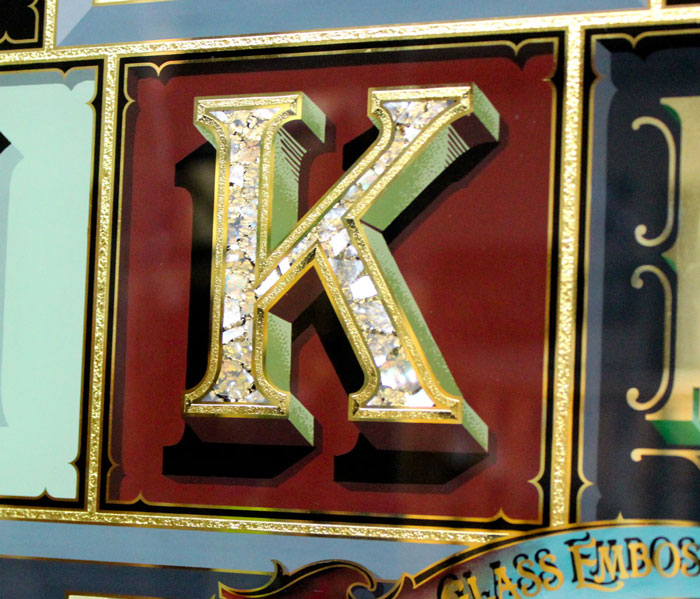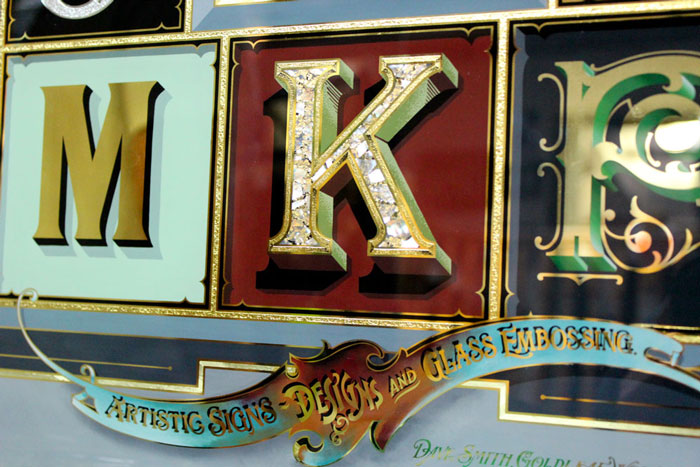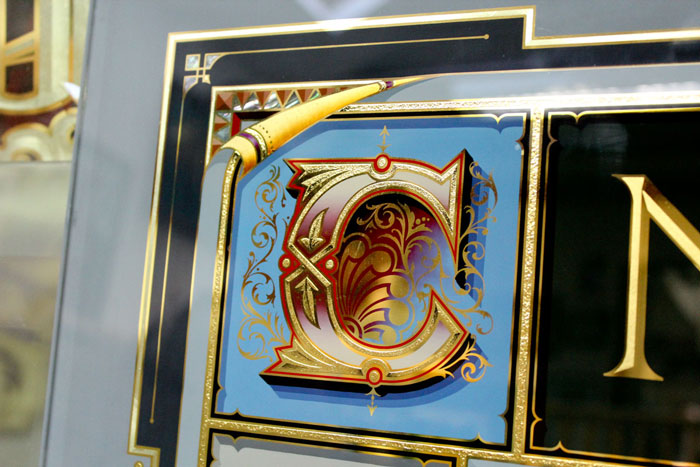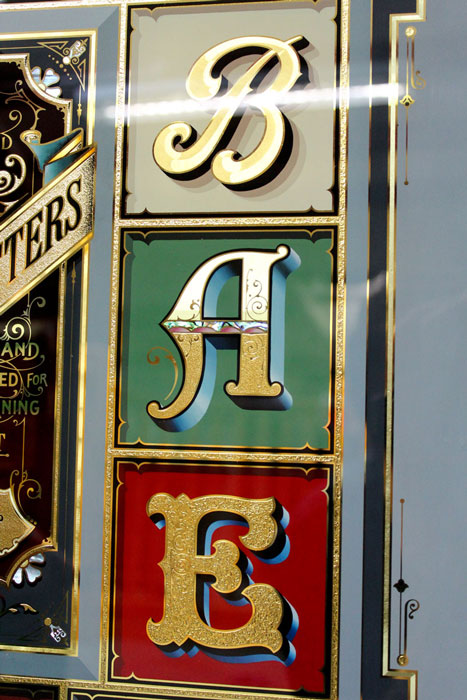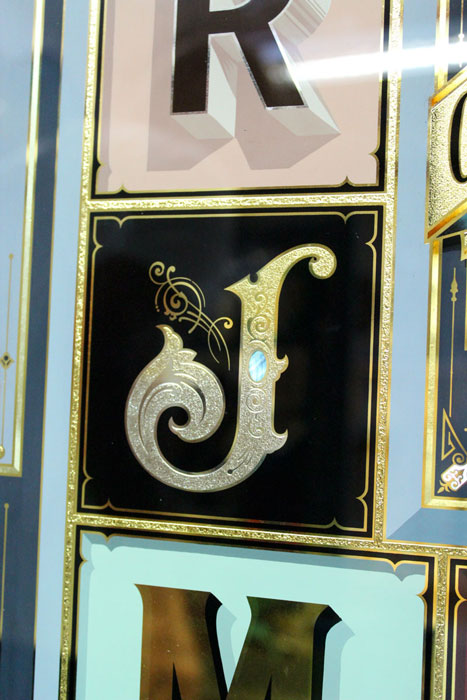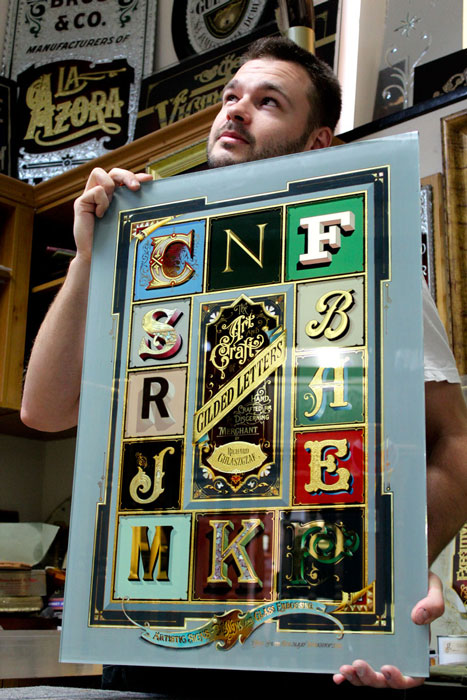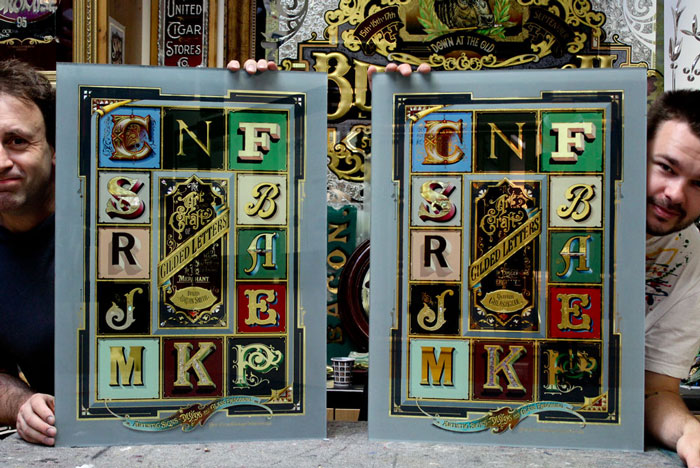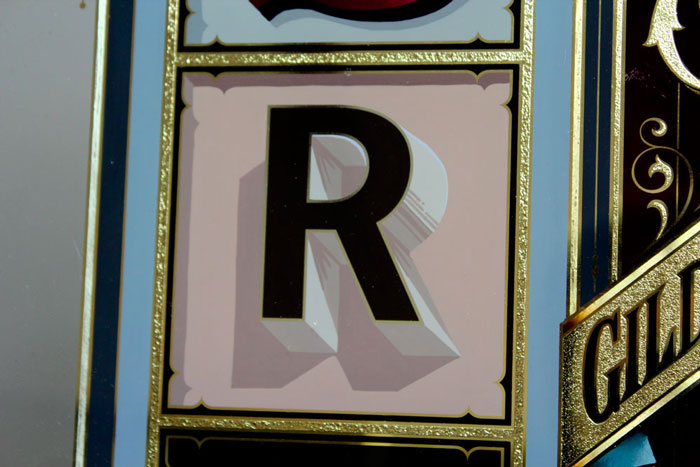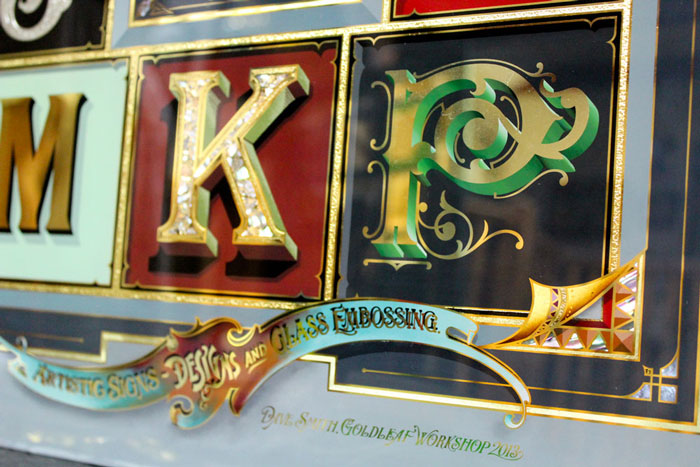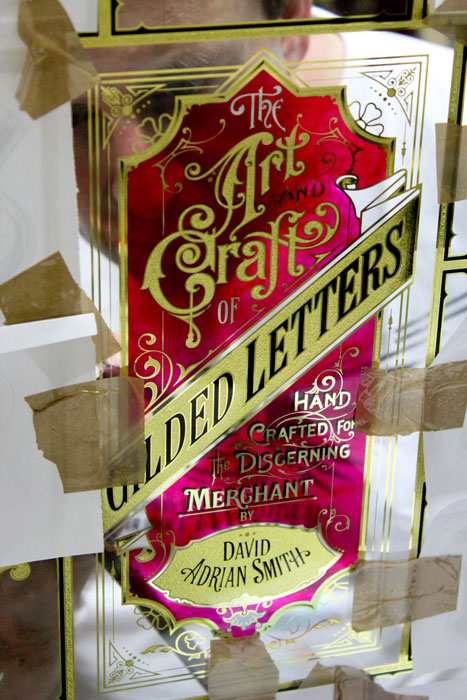
Gilding workshop with a pinstriper from Oslo,Norway
I finished up a gilding workshop a few days back with a lovely talented 29 year old man by the name of Błażej Ryszard Chlaszczak , Trying prounacing that name , i've been struggling all week! real name Richard! Here are some pictures of the workshop that we thought you would enjoy.
Couple of questions.
(1) How many screens did it take to process those?
(2) The center panel. Is that a glaze backed up with leaf. And if so what is it or how did you mix it?
Well I guess that's rally four question.
Thanks guys, Tim, just the one screen was used for the gold leaf and then everything hand done afterwards. glaze is just mixed with turpentine and hand painted,there is no leaf on the back just a blend of black enamel to red so that it keeps a marroon colour and not a muddy brown.
Dave, did you acid etch it before you screened the Gold.?
Robare, yes we acid etched and then gilded. everything else was put in by hand.
I'm working on a piece at the moment which has no screening, which to be honest i prefer. The workshops need to be screened due to time and of course some detail is just impossible by hand , i think the larger works are always better by hand, its nice to see that hand done look on the gold.
So the glaze is just maroon lettering enamel water thinned with turpentine?